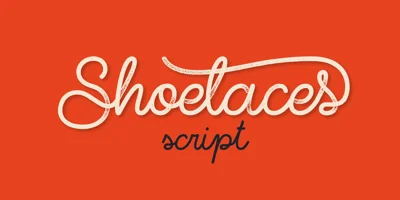
Shoelaces Font
Shoelaces Font excels in athletic design applications including sneaker brand marketing, youth sports team materials, casual footwear advertisements, athletic gear packaging, fitness center signage, street fashion labels, skateboard graphics, active lifestyle campaigns, sports equipment branding, and energetic youth-focused promotions. This dynamic typeface brings athletic authenticity to active lifestyle design projects.
What makes Shoelaces Font truly exciting is its perfect capture of street culture aesthetics with letterforms that mirror the casual confidence and athletic energy of sneaker culture. The font features relaxed characters with sporty proportions and urban appeal that convey movement, youth energy, and authentic street style. Its athletic personality and casual authenticity make it ideal for brands targeting active youth demographics, sneaker enthusiasts, and audiences who value athletic performance, street fashion, and the dynamic culture surrounding sports, fitness, and active urban lifestyles.
The Shoelaces Font family typically includes Regular weight with potential outline and shadow variations that enhance its athletic character. These sporty options provide designers with complete street styling while maintaining the font's distinctive casual elegance and athletic presentation across various sports applications and youth culture contexts.
Whether you're developing athletic brand identities, creating youth sports campaigns, or designing active lifestyle materials, Shoelaces Font provides the athletic authority and casual sophistication that sports-focused projects require. Its exceptional energy and street appeal make it invaluable for designers working with athletic brands, youth organizations, and active lifestyle companies requiring typography that celebrates sports culture, youth energy, and the authentic spirit of street athletics that connects with audiences who live for movement, competition, and the casual confidence that defines modern active urban culture.